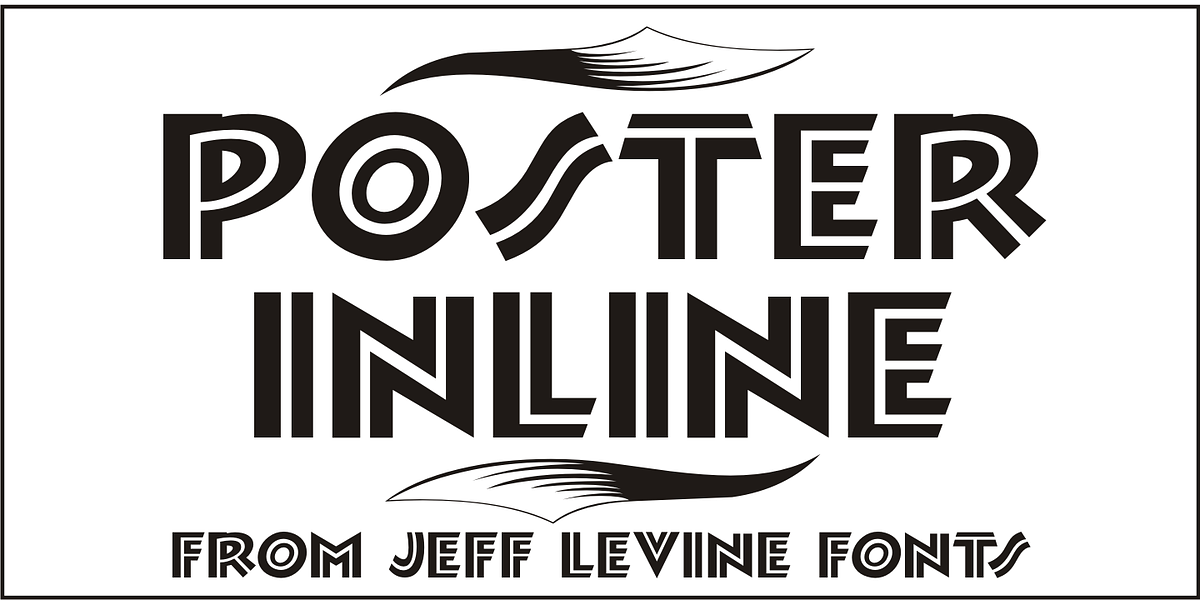
Poster Inline JNL
The word "Signs" hand-lettered on the cover of a 1930s instructional book on sign and poster lettering was the basis for Poster Inline JNL.